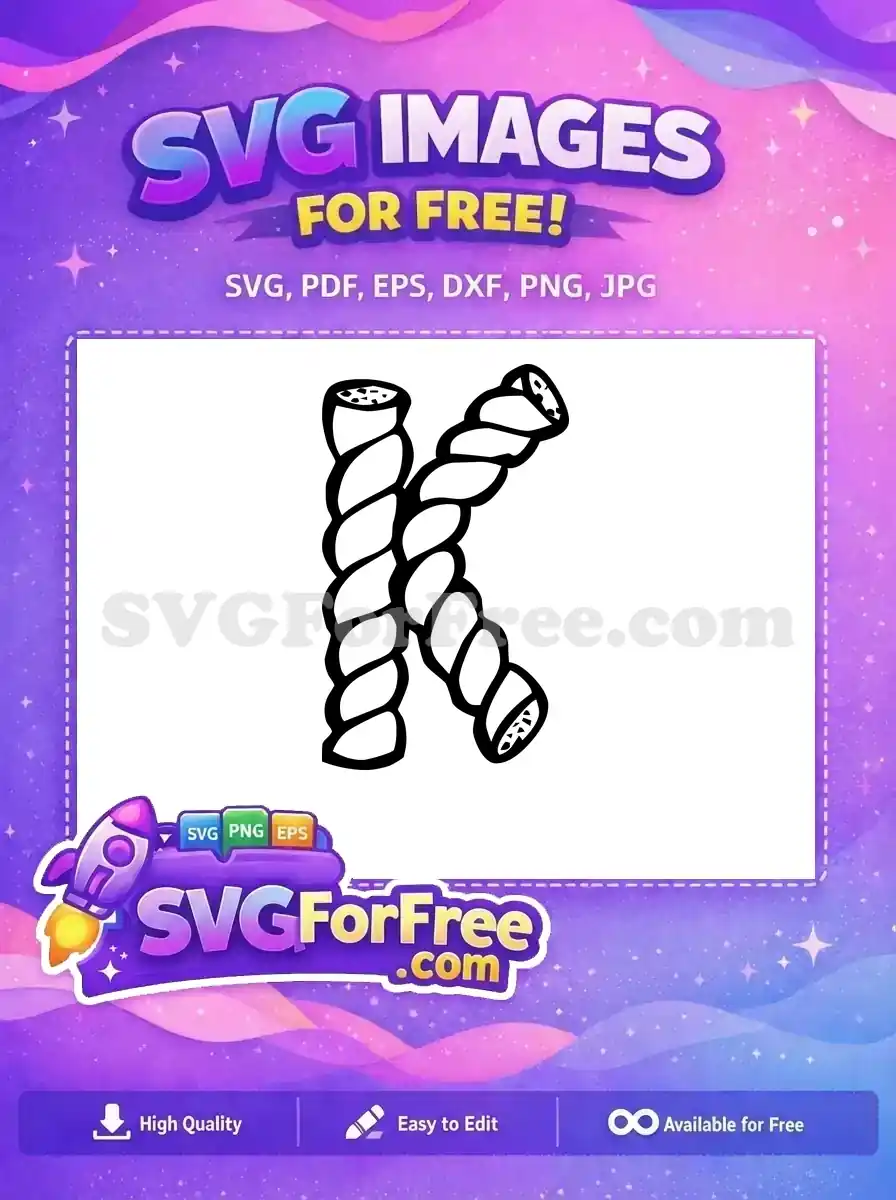
Free Letter K Font Free Rope Style Alphabet Free SVG – Instant Download
Letter K created from intersecting rope segments, a free vector for bold designs.
Free Letter K Font Free Rope Style Alphabet Free SVG